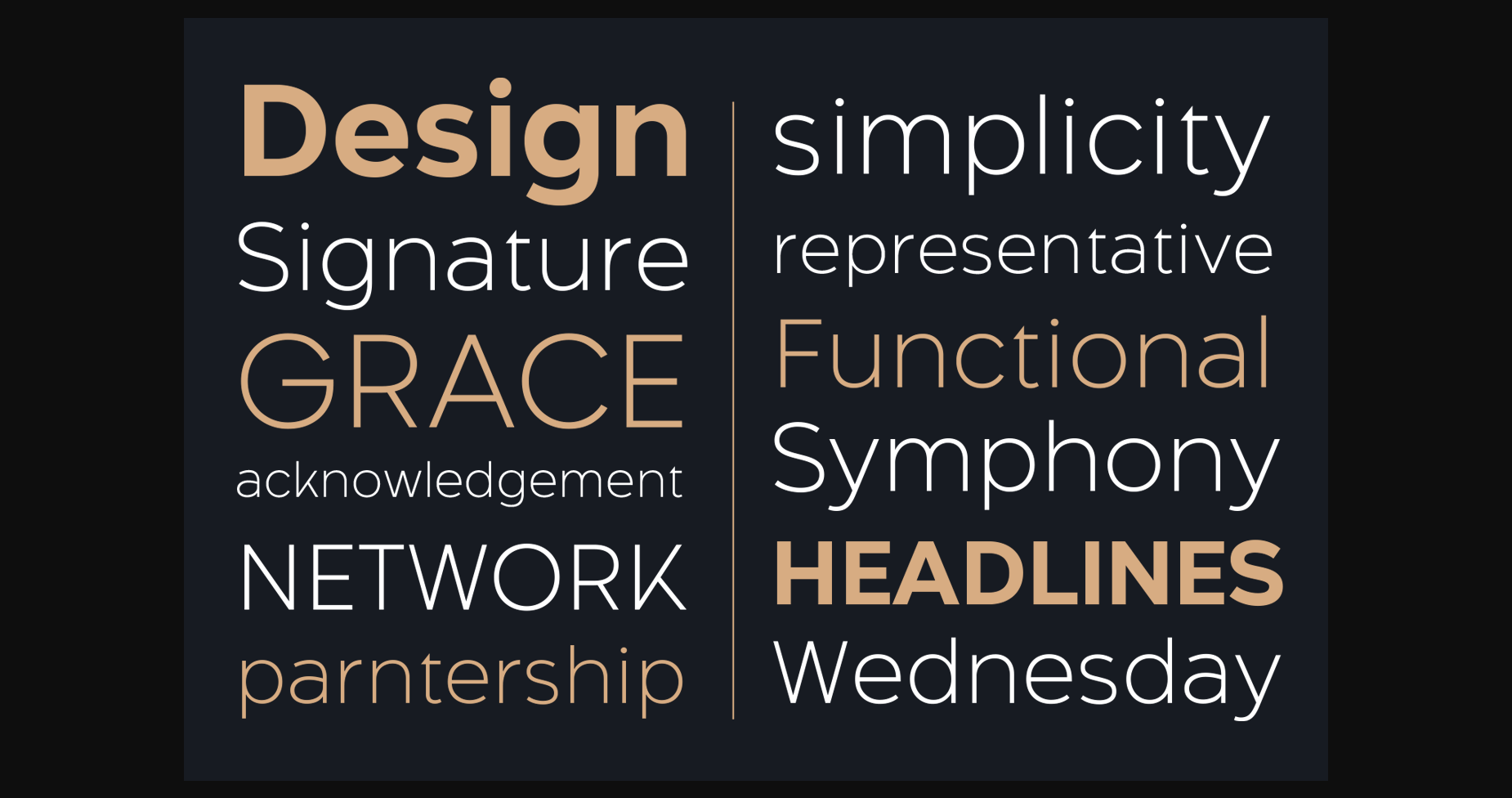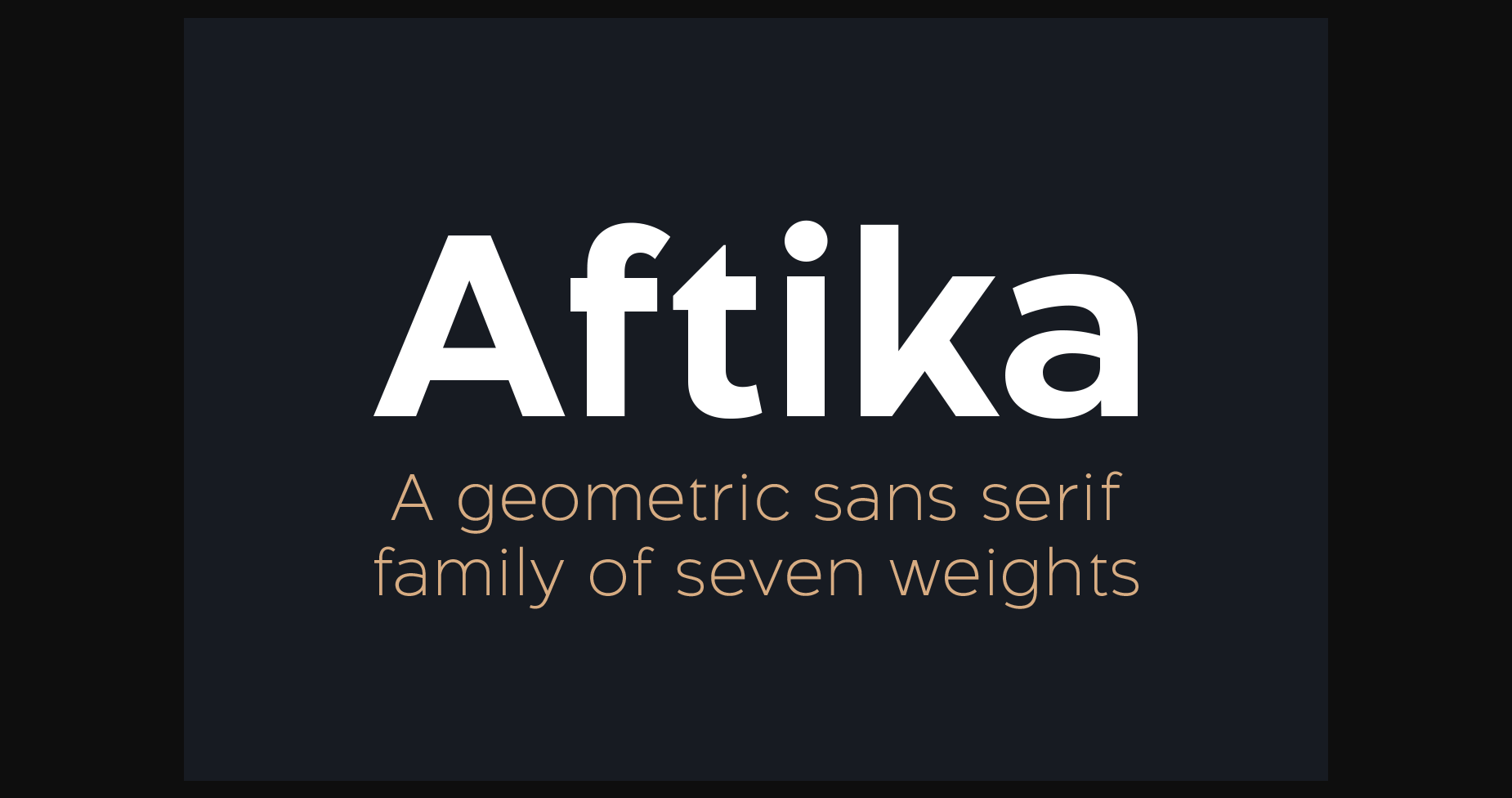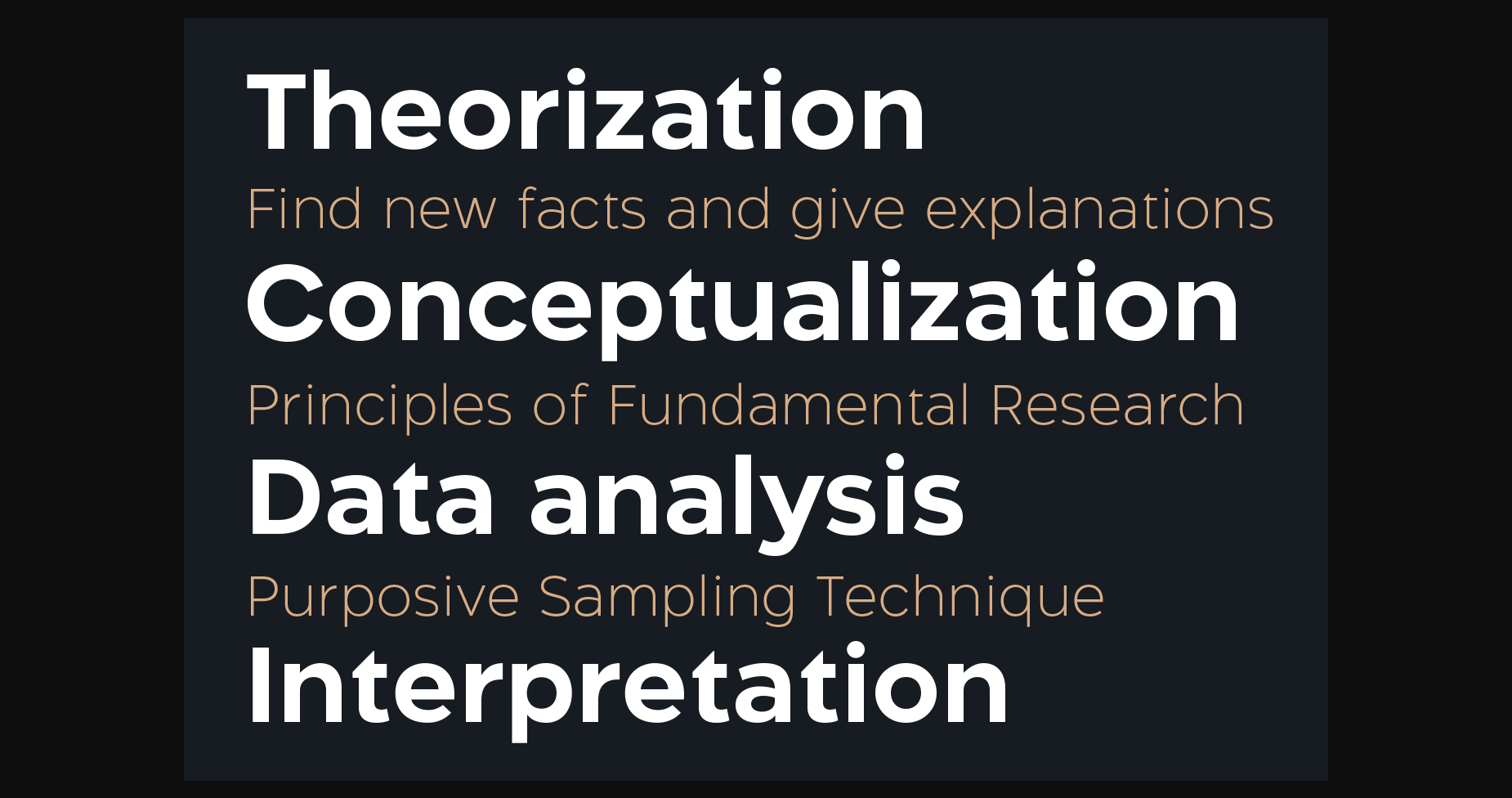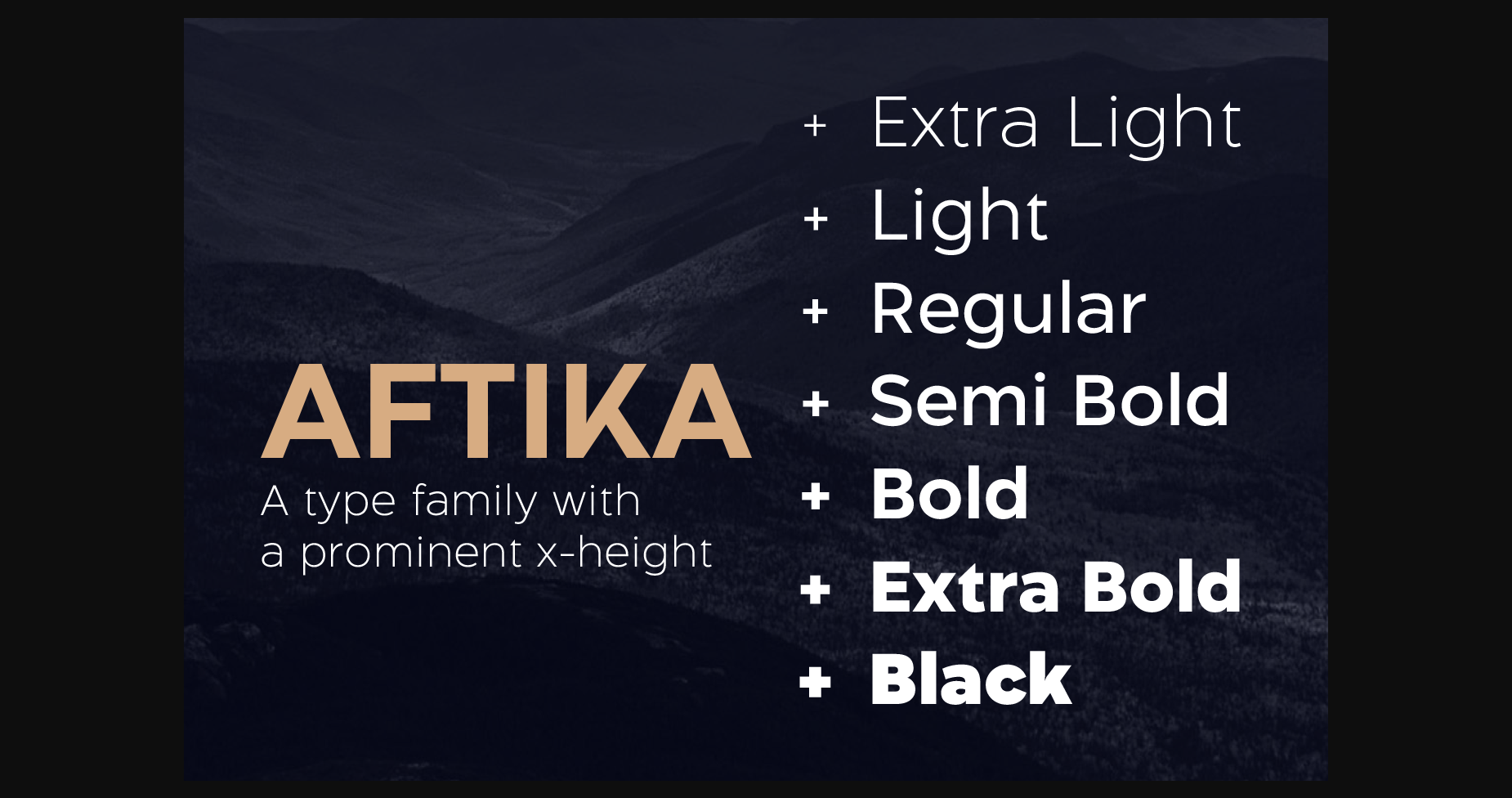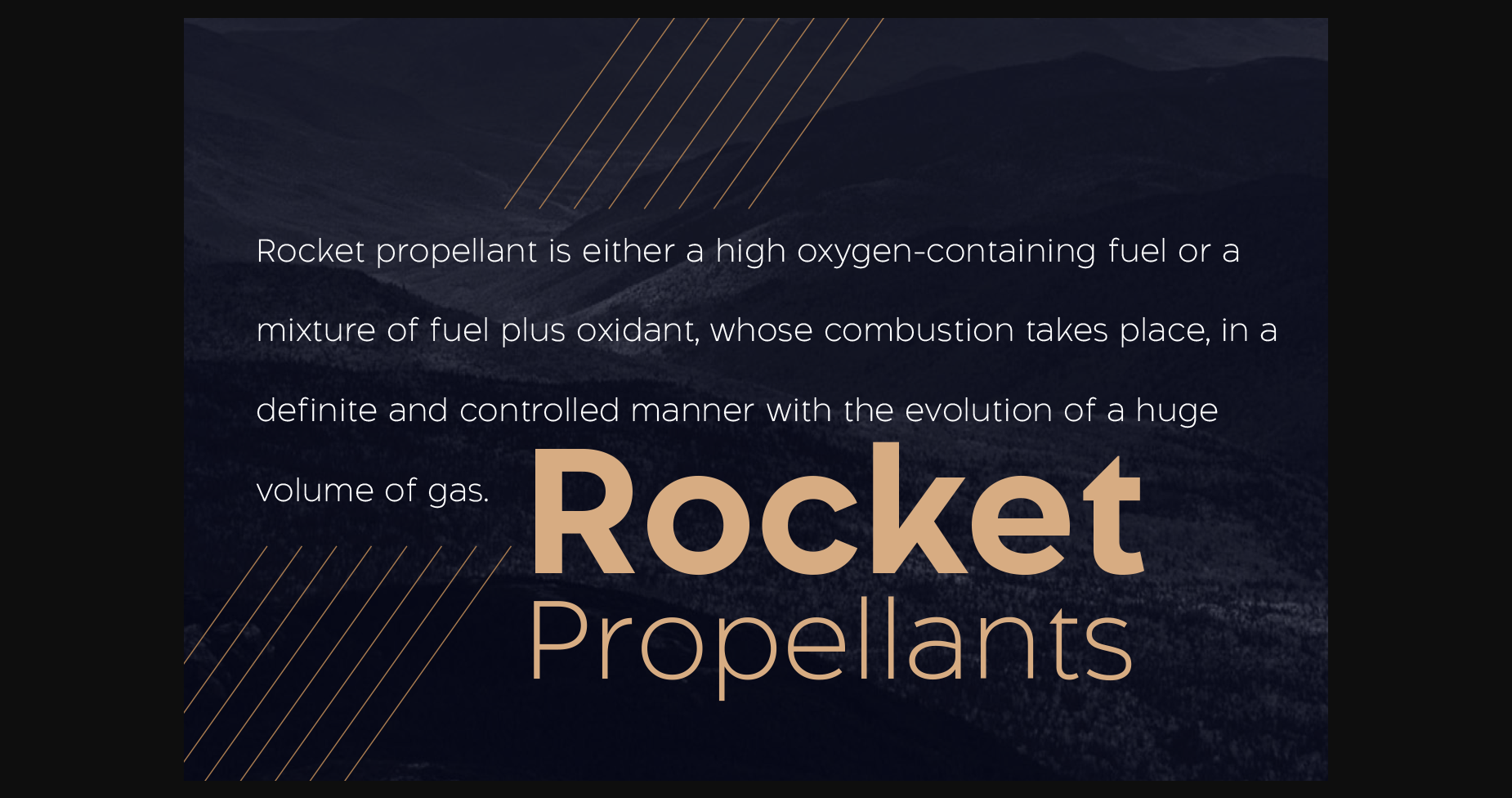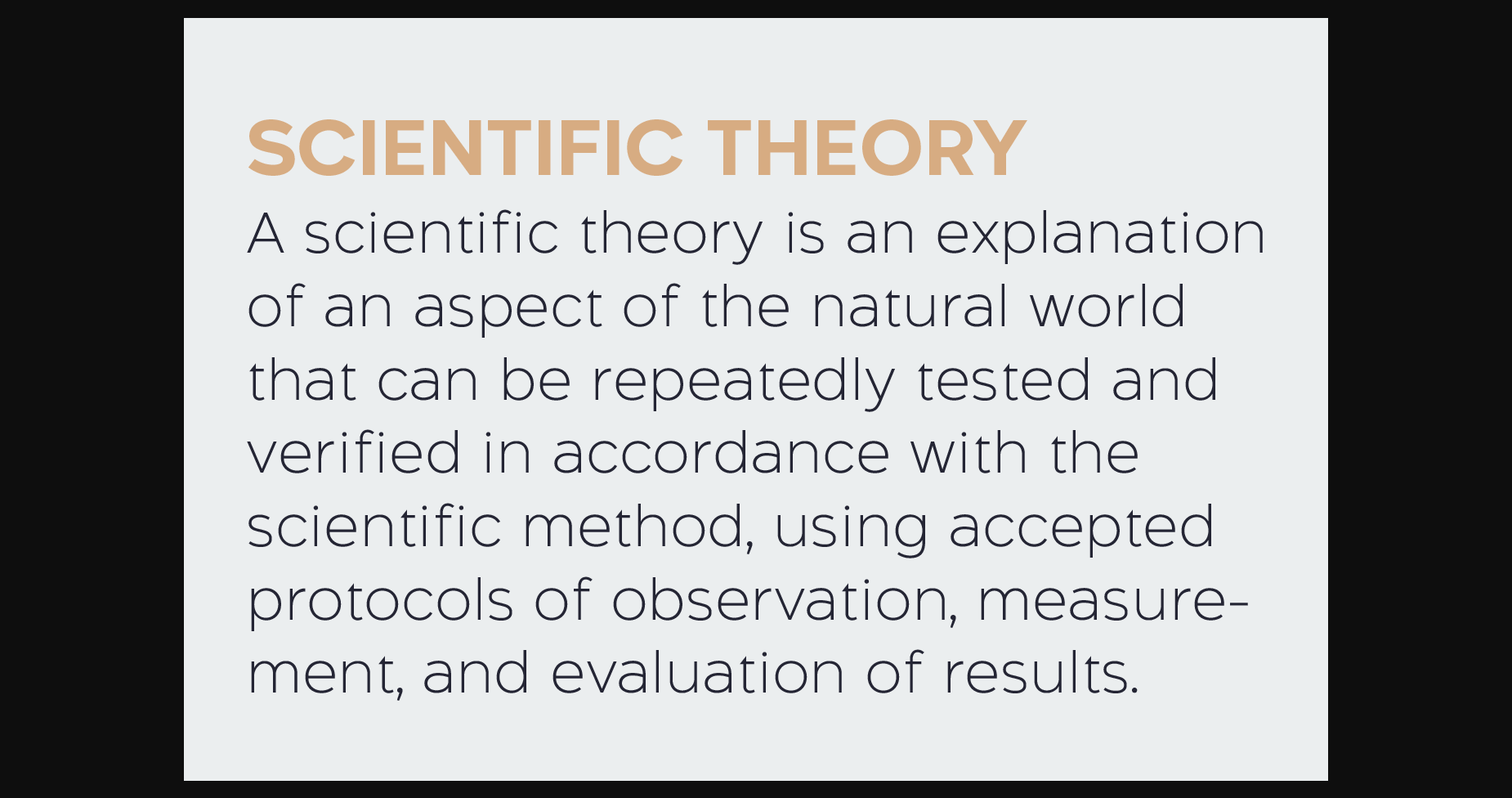
About Aftika Font
Aftika is a clean geometric sans serif family of seven weights. Characterized by a prominent x-height, it is well suited for advertising, packaging, editorial and publishing, logos, branding, posters, billboards, signage as well as for small text for print or digital screens.